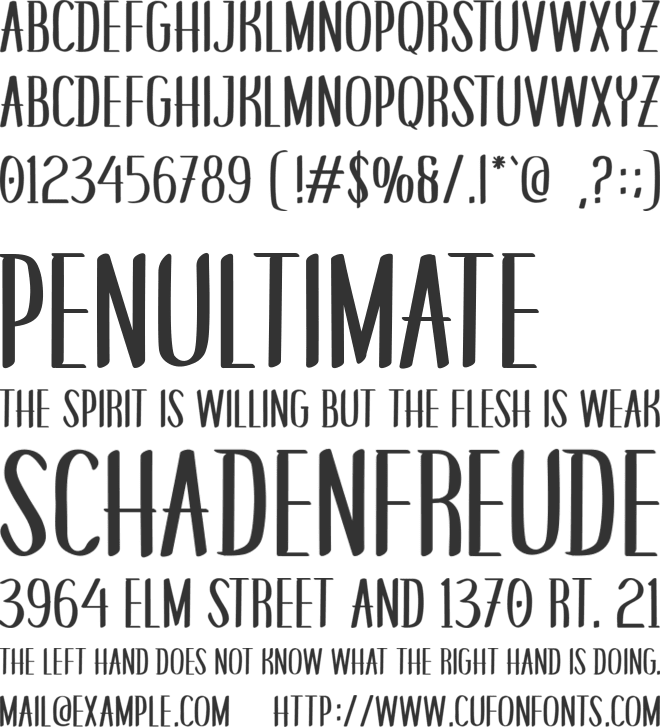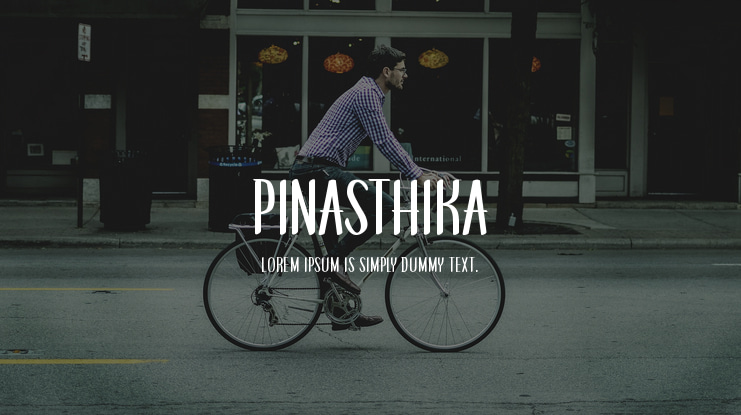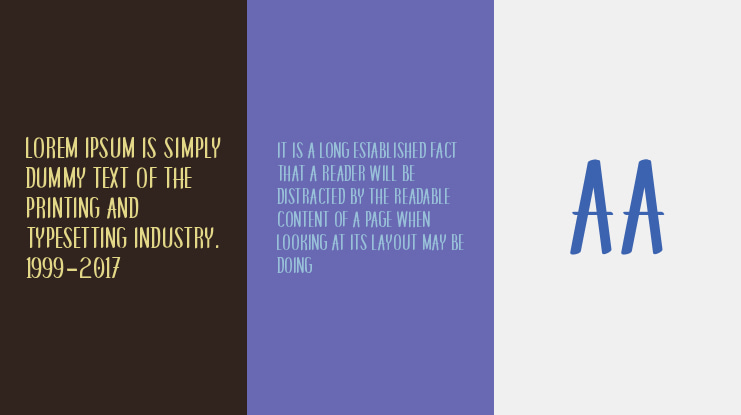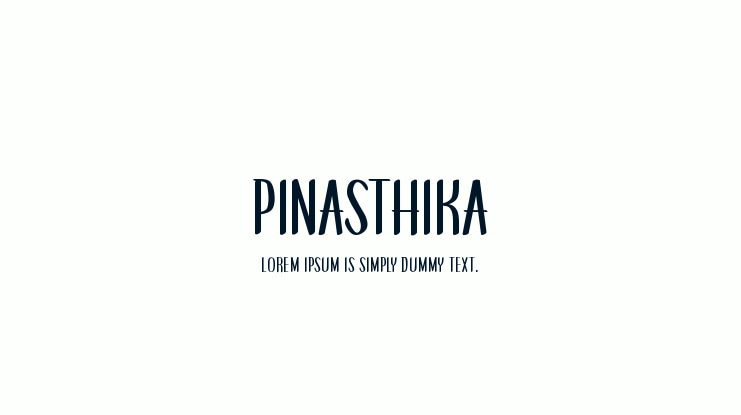
Pinasthika Font
Proudly Present: Pinasthika
Pinasthika is a creative minimalist handwritten font that is beautifully designed with the help of a brush pen. It can be matched to an incredibly large set of projects that require a creative, modern and minimalist touch. You can use it to create an Instagram quote, creative poster, typographic t-shirt and much more. Add it to your creative ideas and notice how it makes them stand out!